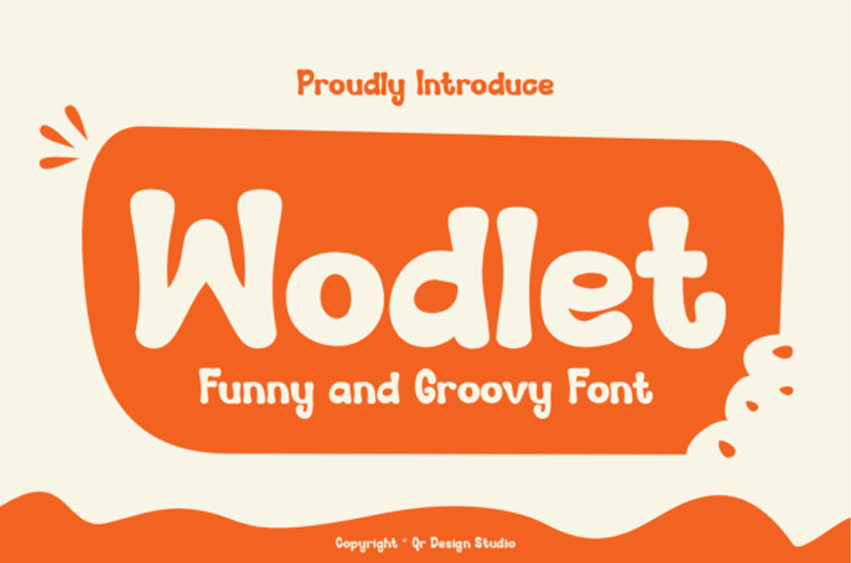
Wodlet Font
Wodlet Font is a fun and groovy display font full of personality and bounce. With its rounded edges, playful structure, and quirky vibe, it’s perfect for kids’ designs, cartoons, branding for playful products, or anything that needs a dose of happy energy. Wodlet makes your text look like it’s dancing on the page!
Whether you’re designing for children, crafting a cheerful logo, or creating bold social content, Wodlet brings lighthearted charm to every project.